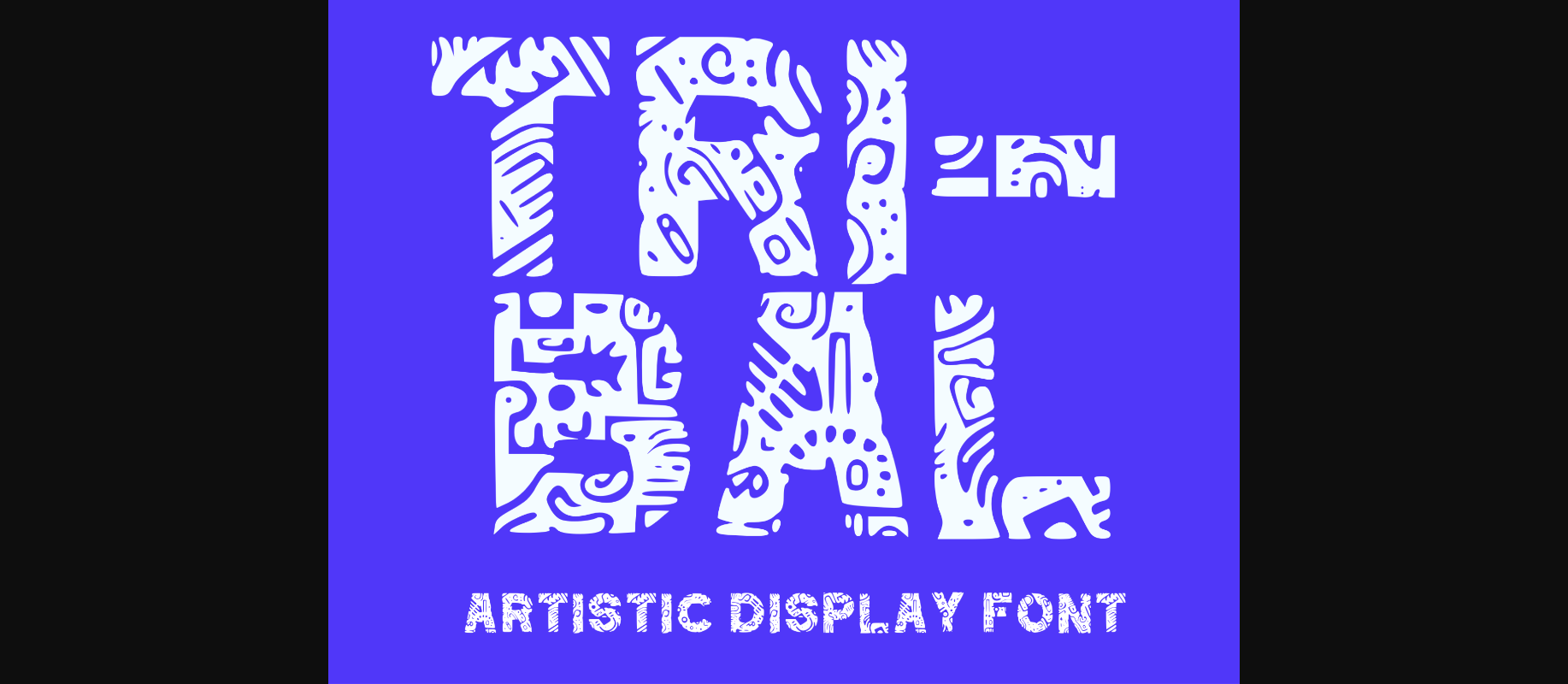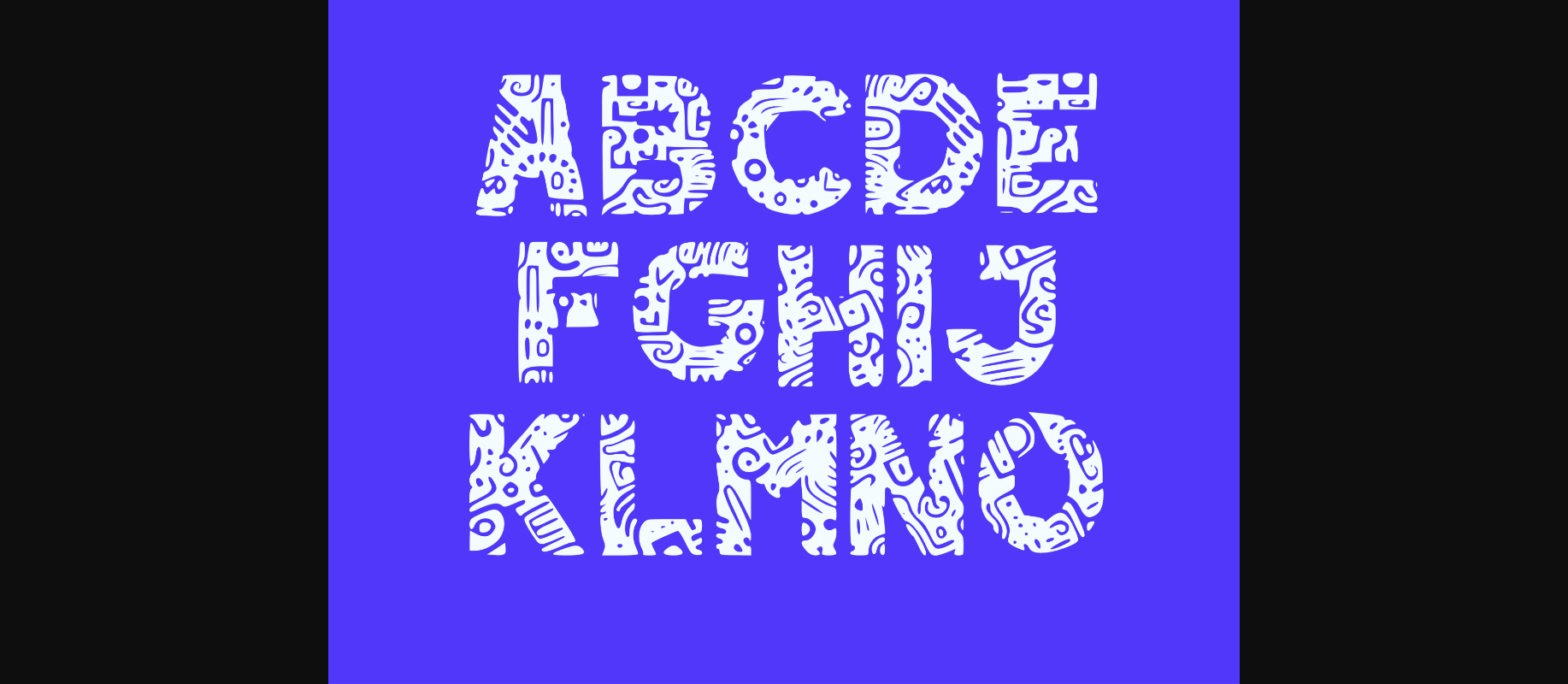
About Tribal Doodle Font
Step into the realm of creativity with Tribal Doodle, a striking display font that breaks free from convention. This font is a captivating fusion of bold, contemporary design and expressive artistic expression, making it the ideal choice for demanding projects that require a dash of individuality.